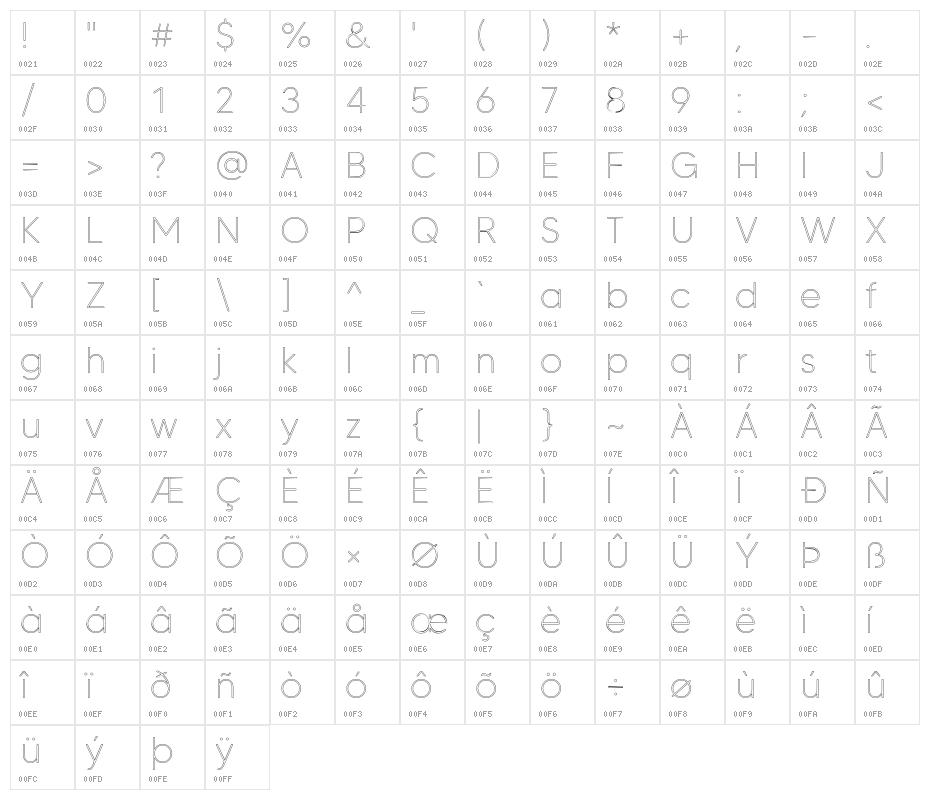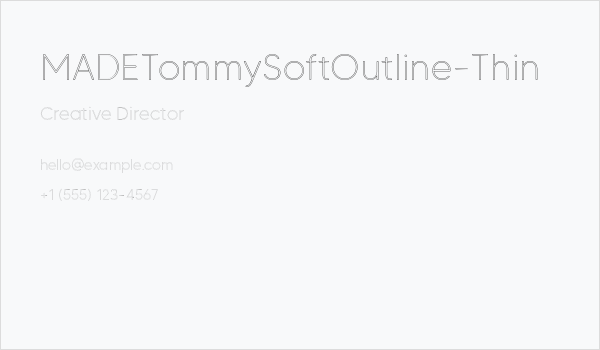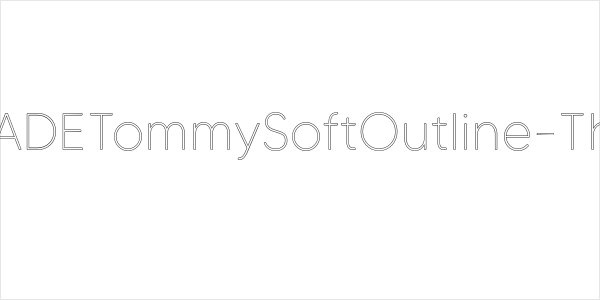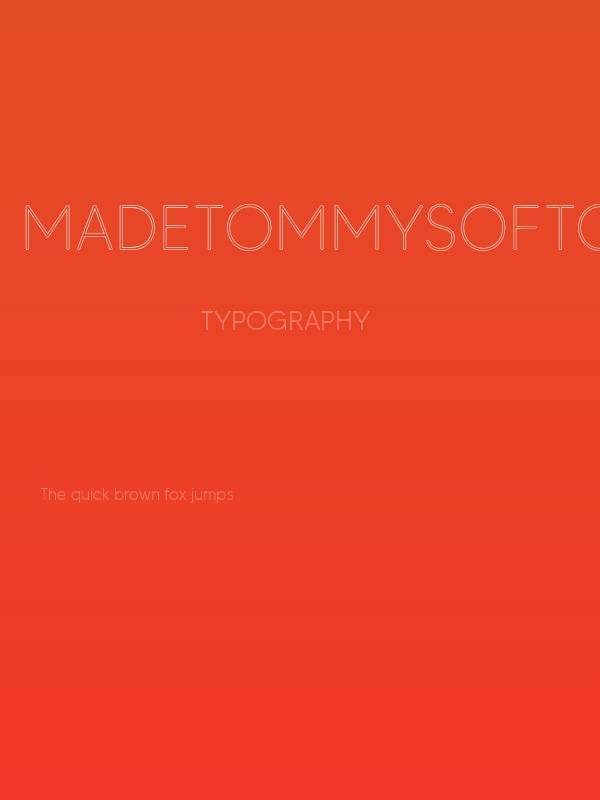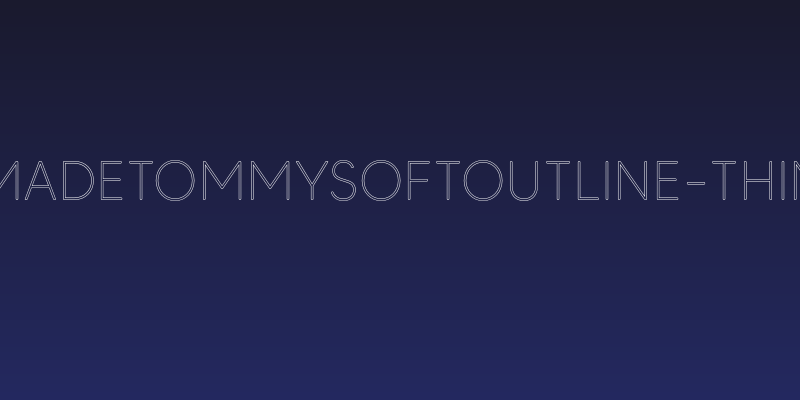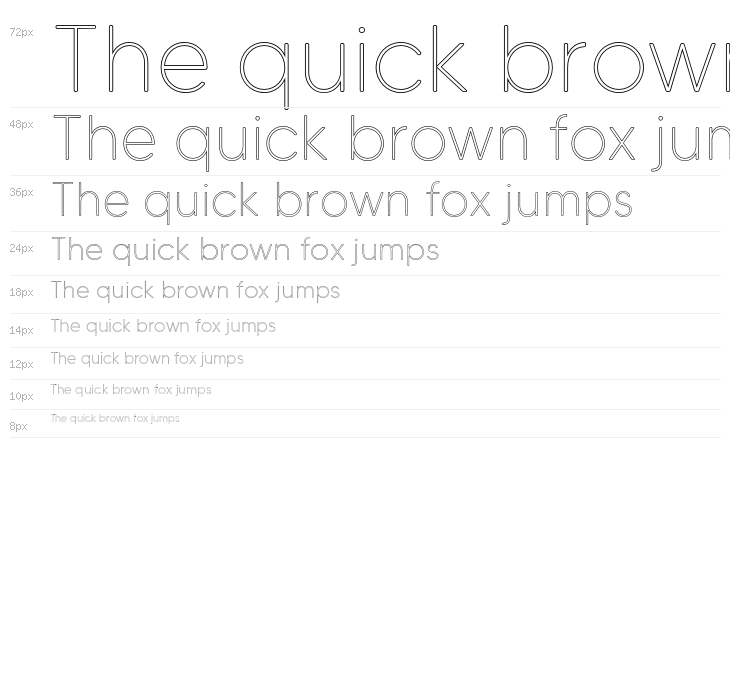
MADETommySoftOutline-Thin Font
MADETommySoftOutline-Thin Description
This font features a clean and modern outline style with a thin stroke, giving it a light and airy appearance. The characters are well-proportioned and maintain a consistent line weight throughout, creating a harmonious and balanced look. The uppercase and lowercase letters are designed with a geometric precision, while the numerals and special characters complement the overall aesthetic. The open design of the letters enhances readability, making it suitable for various design applications. Its minimalist and contemporary style makes it versatile for both digital and print media.
| Proposed Projects | Ideal for branding, logos, posters, and modern web design projects. |